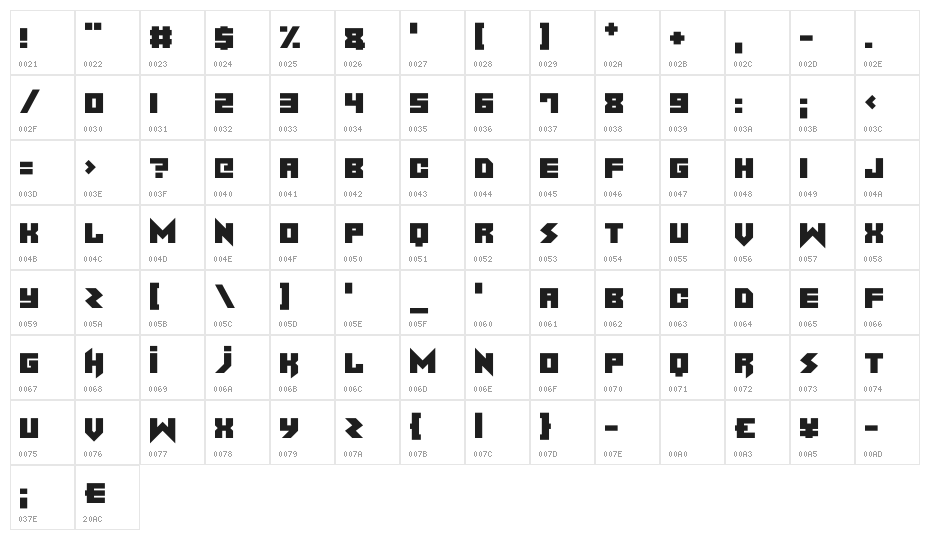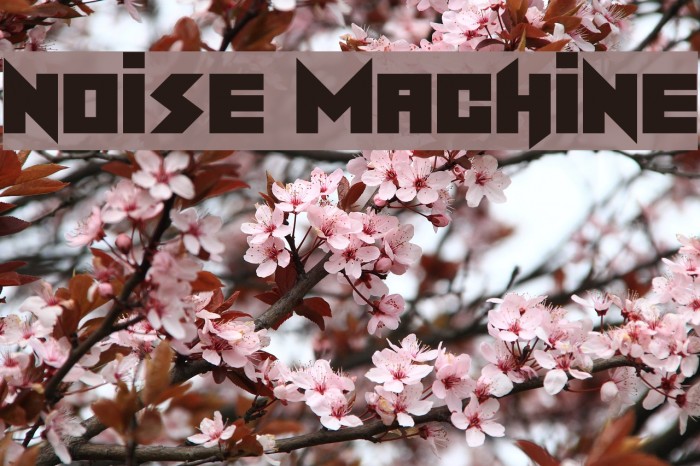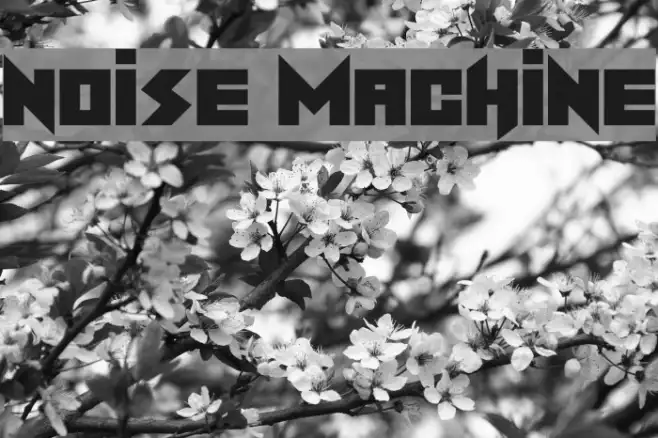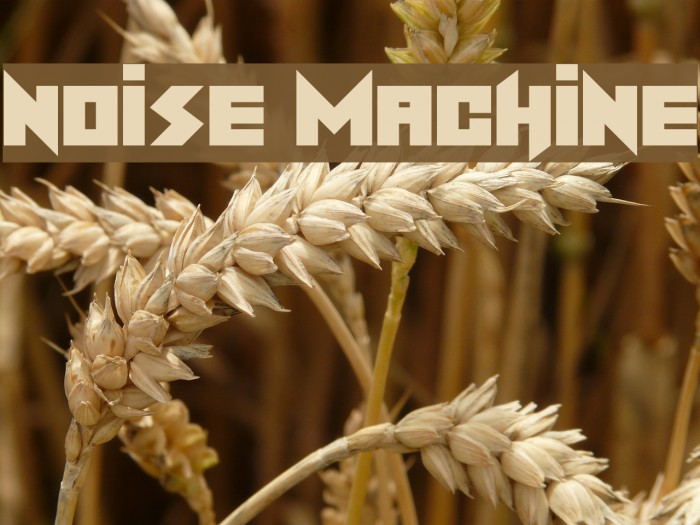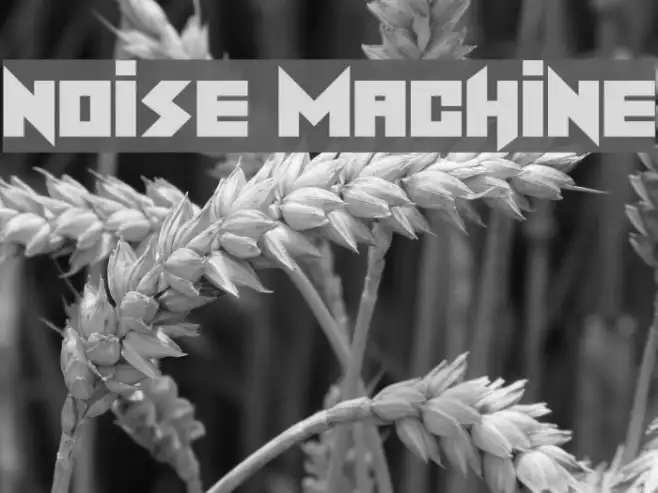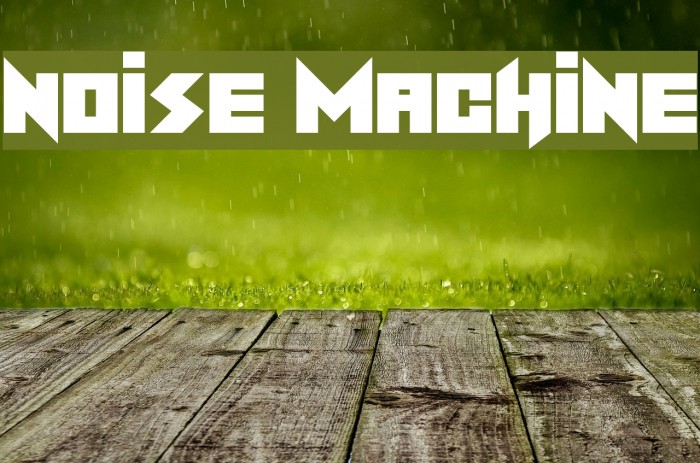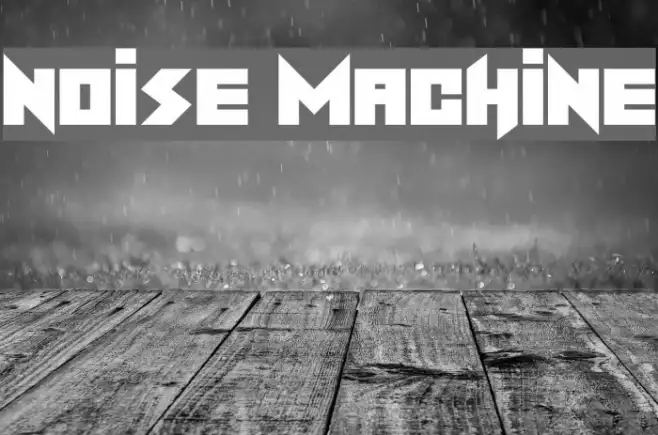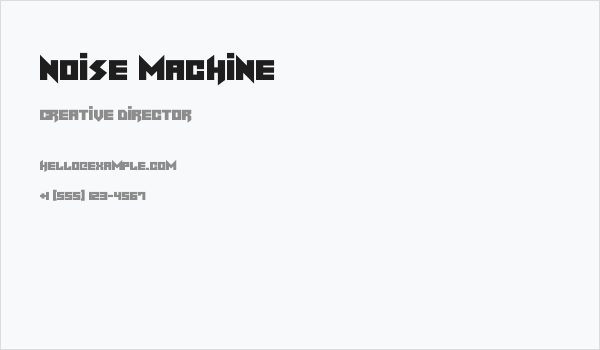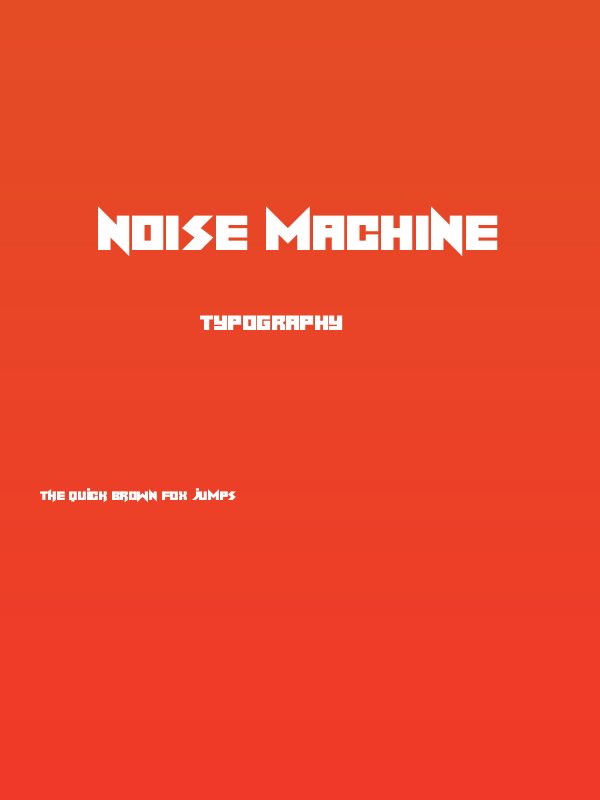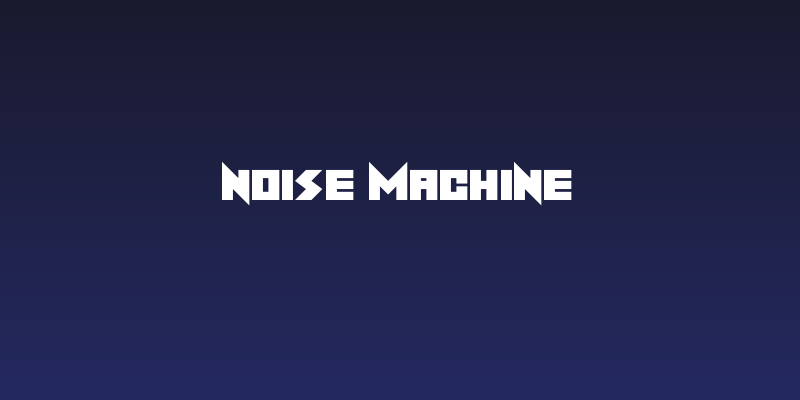
Noise Machine Font
Noise Machine Description
This font features a bold, geometric design with sharp angles and a futuristic aesthetic. The uppercase and lowercase letters are constructed with a consistent blocky style, emphasizing straight lines and pointed edges. The numerals and special characters maintain this angular theme, creating a cohesive and striking appearance. The font's thick strokes and uniform weight contribute to its strong visual impact, making it ideal for attention-grabbing designs. Its unique style is reminiscent of digital or sci-fi themes, offering a modern and edgy look.
| Overall Style | Futuristic, Modern |
| Proposed Projects | Ideal for sci-fi themed posters, video game graphics, tech branding, and futuristic event flyers. |